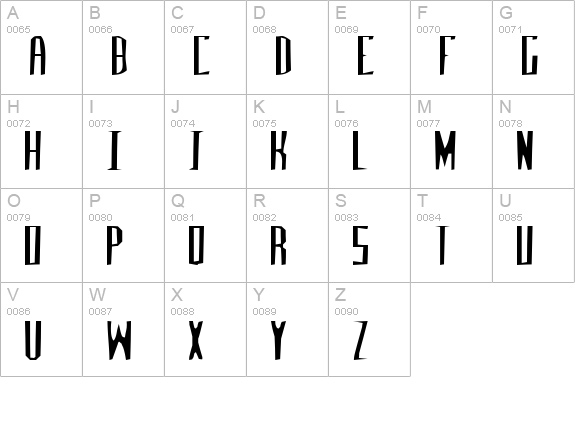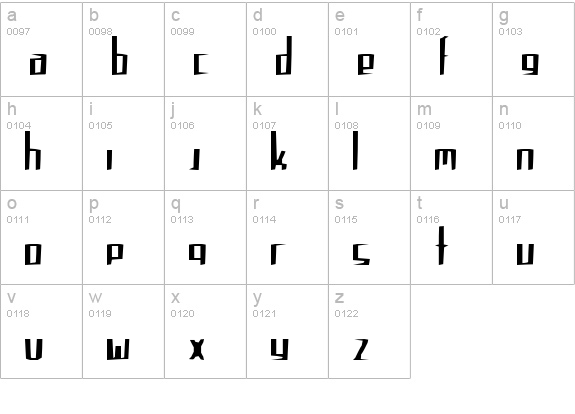
Mandible Mama Font Details
Introducing Mandible Mama, a captivating and unique font that will leave a lasting impression on any design project. This font is a perfect blend of elegance and playfulness, making it versatile for a wide range of creative endeavors. With its elegant curves and bold lines, Mandible Mama commands attention and adds a touch of sophistication to any design. Whether you're designing a logo, creating a poster, or crafting a stylish invitation, this font will elevate your work to new heights. What sets Mandible Mama apart is not only its stunning aesthetics, but also its incredible versatility. This font effortlessly adapts to any style or theme, making it ideal for both professional and personal projects. From modern and minimalist designs to whimsical and artistic creations, Mandible Mama can truly do it all. And the best part? Mandible Mama is available for free download at FontsMarket.com. Yes, you heard that right - this stunning font can be yours without spending a dime. FontsMarket.com is a reputable platform that offers a vast collection of high-quality fonts, and Mandible Mama is just one of the many gems you'll find there. So why wait? Download Mandible Mama today and unleash your creativity like never before. Whether you're a seasoned designer or just starting out, this font will undoubtedly become a valuable asset in your toolkit. Don't miss out on the opportunity to make your designs stand out with the captivating charm of Mandible Mama.